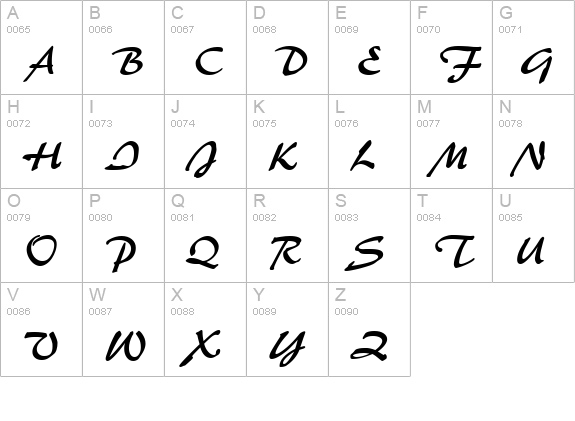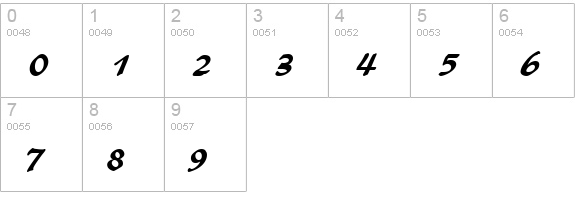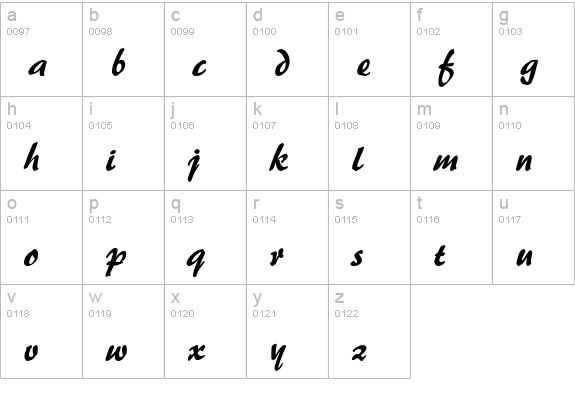
BrushStroke 35 Normal is the standard, neutral variant in the BrushStroke typeface family \xE2\x80\x94 well suited to general body text, paragraphs, and standard typographic work.
BrushStroke 35 Normal font is a stylish and versatile typeface that adds a touch of creativity to any design project. With its unique brushstroke style and effortless charm, this font is perfect for adding a handcrafted feel to your artwork, posters, logos, and more. The natural flow of the strokes gives a personalized touch to your text, making it stand out from the crowd. Best of all, BrushStroke 35 Normal font is available for free download at FontsMarket.com. This means you can easily access this beautiful font and use it in your projects without any cost. Whether you're a designer looking to add a special touch to your creations or someone who loves experimenting with different fonts, BrushStroke 35 Normal is a great choice. Download it today and let your creativity shine with this stunning typeface.